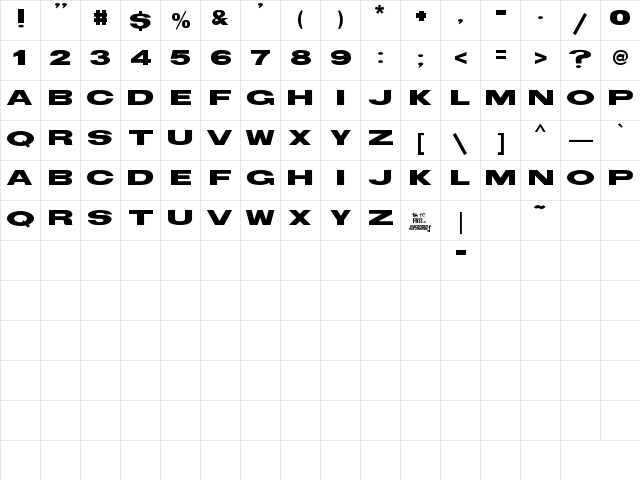
TS Block Bold
| Designer | Supercarguy |
Design Context for TS Block Typeface
TS Block offers clean, dependable letterforms without strong stylistic allegiance, making it a practical choice for designers who need flexibility. Its bold stroke weight gives it real presence on the page.
Pro Tip: Pair TS Block with a font of contrasting weight or personality to build a more expressive typographic hierarchy.